Introduced pioneering concepts in web fonts
Typotheque
Peter Bilak
Type Project interview with Peter Bilak.
1. Tell us about your company.
Typotheque is a type foundry based in The Hague, the Netherlands, established in 1999. Typotheque work has been recognised internationally, receiving numerous awards from TDC New York, Granshan, European Design Award, etc. Their work has been featured in dozens of books and magazines.
The founder of Typotheque, Peter Bilak, is the professor of typography at the postgraduate course Type & Media, at the Royal Academy of Arts in The Hague. For his contribution to the non-Latin typography, he was named in 2012 one of the 12 Game Changers by the Metropolis magazine. In 2009 we introduced pioneering concepts in web fonts, being the first commercial type foundry to licence its entire type library for use on the web. Typotheque has three partners: Peter & Johanna Bilak, and Nikola Djurek.Typotheque also has a sister company TPTQ Arabic, which specialises in development of Arabic fonts.
2. What is (are) the main/leading font(s) of your company?
Our flag ship font suite is Fedra, a typeface that works well in both print & screens, available in Sans, Sans Condensed, Serif, Monospaced, Display, covering hundreds of languages, from Latin based to Cyrillic, Greek, Armenian, Arabic, Hebrew, Devanagari, Tamil, Bengali, Malayalam.
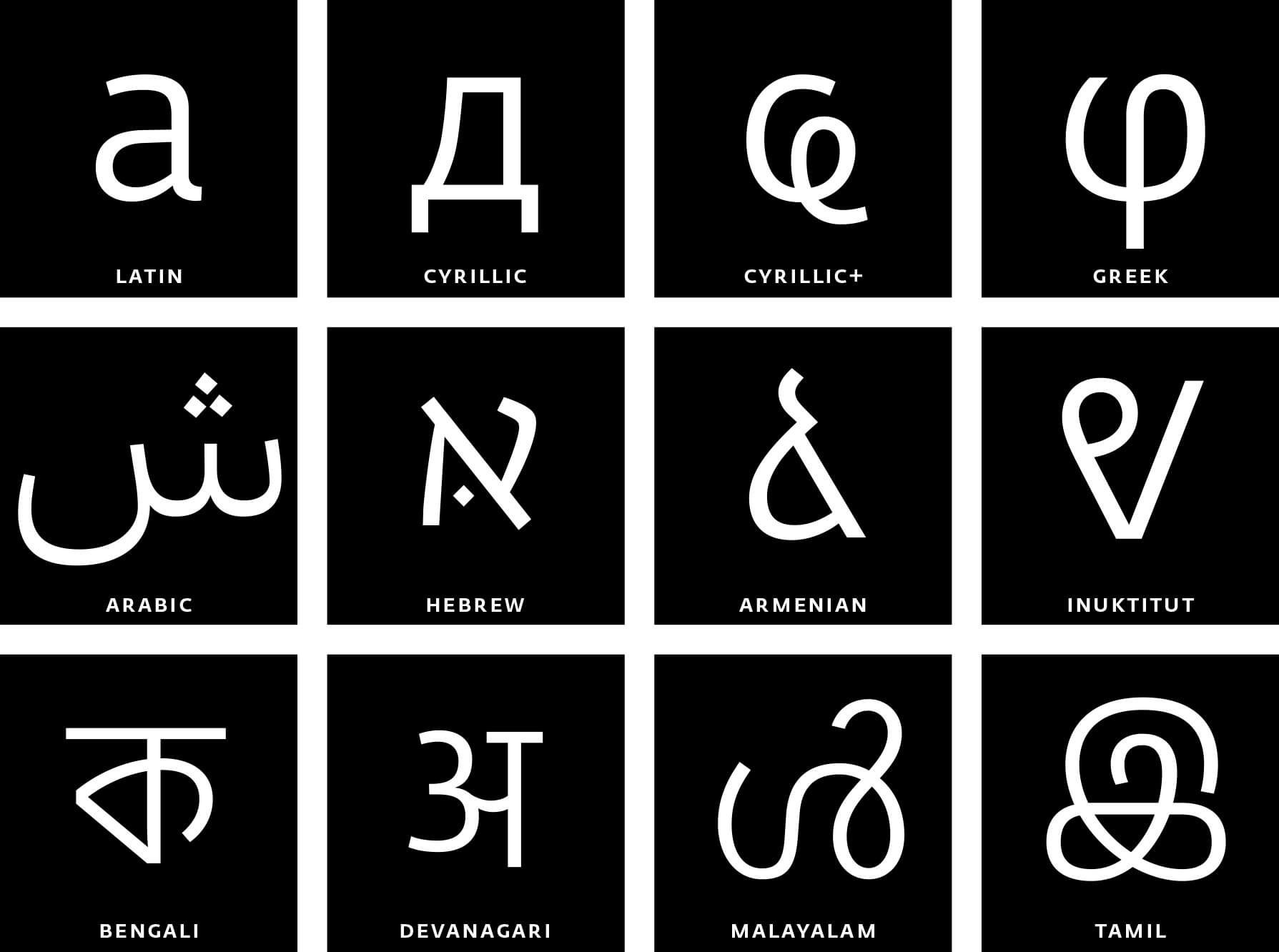
Another important super family is Greta, also in Serif and Sans and Mono available in multiple widths. Greta Sans comes in 80 styles (10 weights and 4 weights, with true italics.) It supports also Arabic, Hebrew, Cyrillic, Greek and Devanagari, each of those covered scripts is unprecedented, and currently largest typeface family available for these languages.
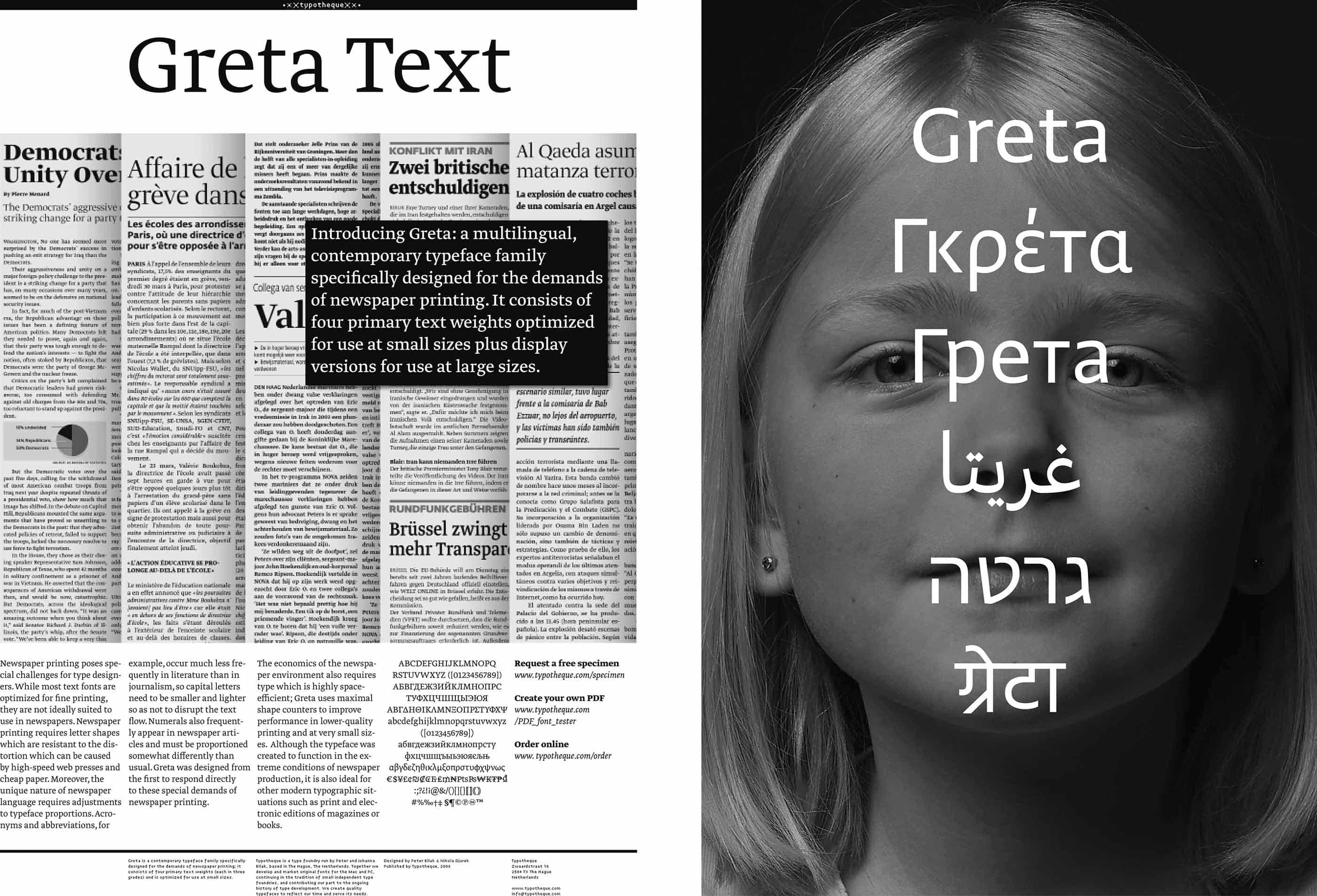
Typotheque retail library includes over 200 complex typeface families, consisting of over 2000 fonts.Typotheque retail library includes over 200 complex typeface families, consisting of over 2000 fonts.
3. Is there any newly released typeface from your company?
We publish new typefaces four times a year, so there are new designs regularly published. Recent ones are variable font explorations playing with optical illusions called Wind, or an unusual editorial typeface system called Brenner.
4. What is the ratio of your work for original design fonts and custom order fonts?
Typotheque has designed a number of corporate fonts, namely for the Paris Metro, Mozilla, World Press Photo, Vienna Airport, but still our retail type collection is the most important part of the work, taking 80% of our time.
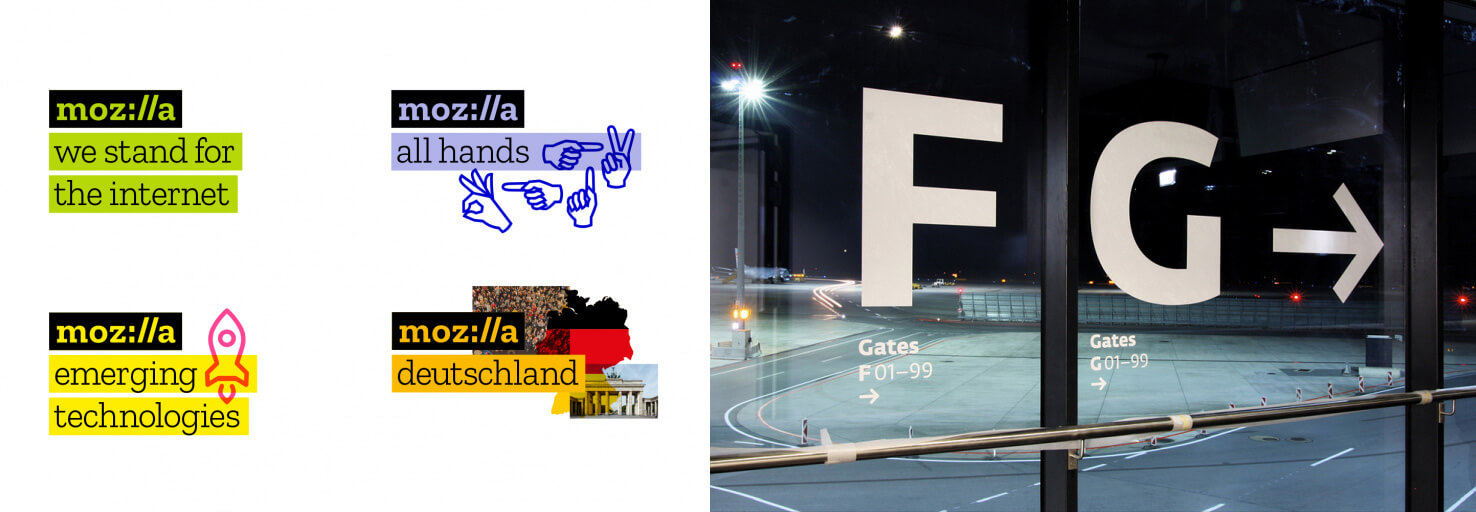
5. Can you tell us about your customer(s)? How do they use the font?
We work directly with our customers, advising them on how to get most out of our fonts. They are mainly design and branding agencies around the world. They used our fonts when they want to express specific voice, or define a brand.
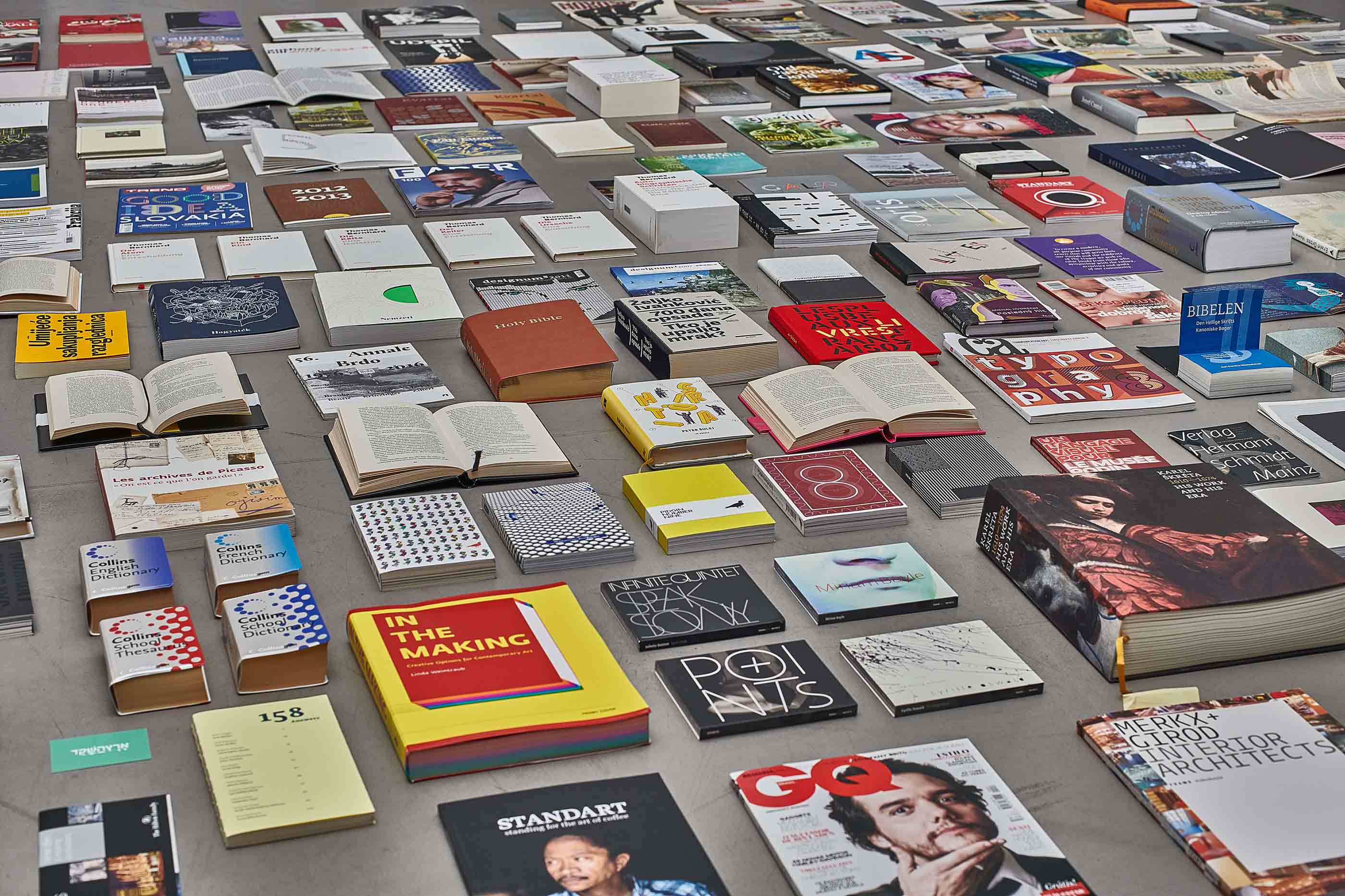
6. What kind of device(s) your customer has (have) embedded the font(s) with?
Our fonts have been used in variety of ways, built in in mobile applications, or electronic airport signage, used in software or hardware, but also in conventional print or websites. We are particularly proud that our fonts can be found on many websites, as we helped to defined the webfont standards, and we were the first foundry to introduce webfont licensing.
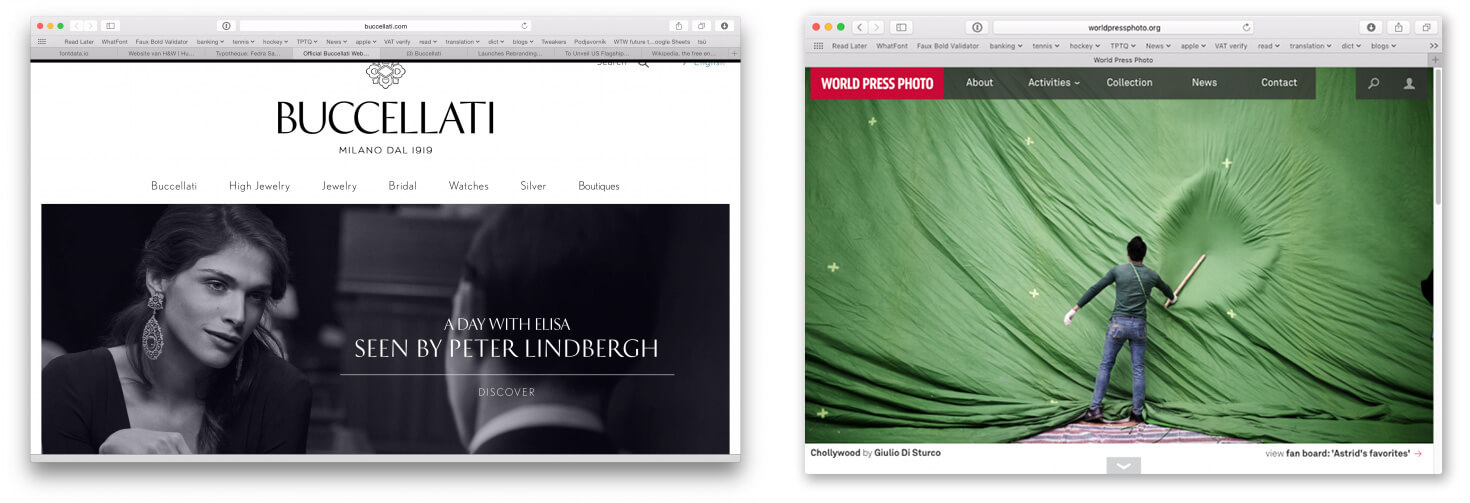
8. Can you tell us about what you are working on right now and what you will like to work on in the future?
We always work on a number of projects at the same time. At the moment, we work on a collection of Devanagari and Tamil fonts for our bestselling font collection. We also work on very playful display fonts for Latin, that will be published in 2019. Many of the projects that we work on will be published in 2-3 years, sometimes it takes even longer, to create the work that we are satisfied with, and that can bring value to our customers for many decades. For example, Fedra Sans was designed in 2001, but right now is our bestselling font, and we continue improving it and extending the language support. So when our client buy our fonts, they can expect to use them for a very long time.
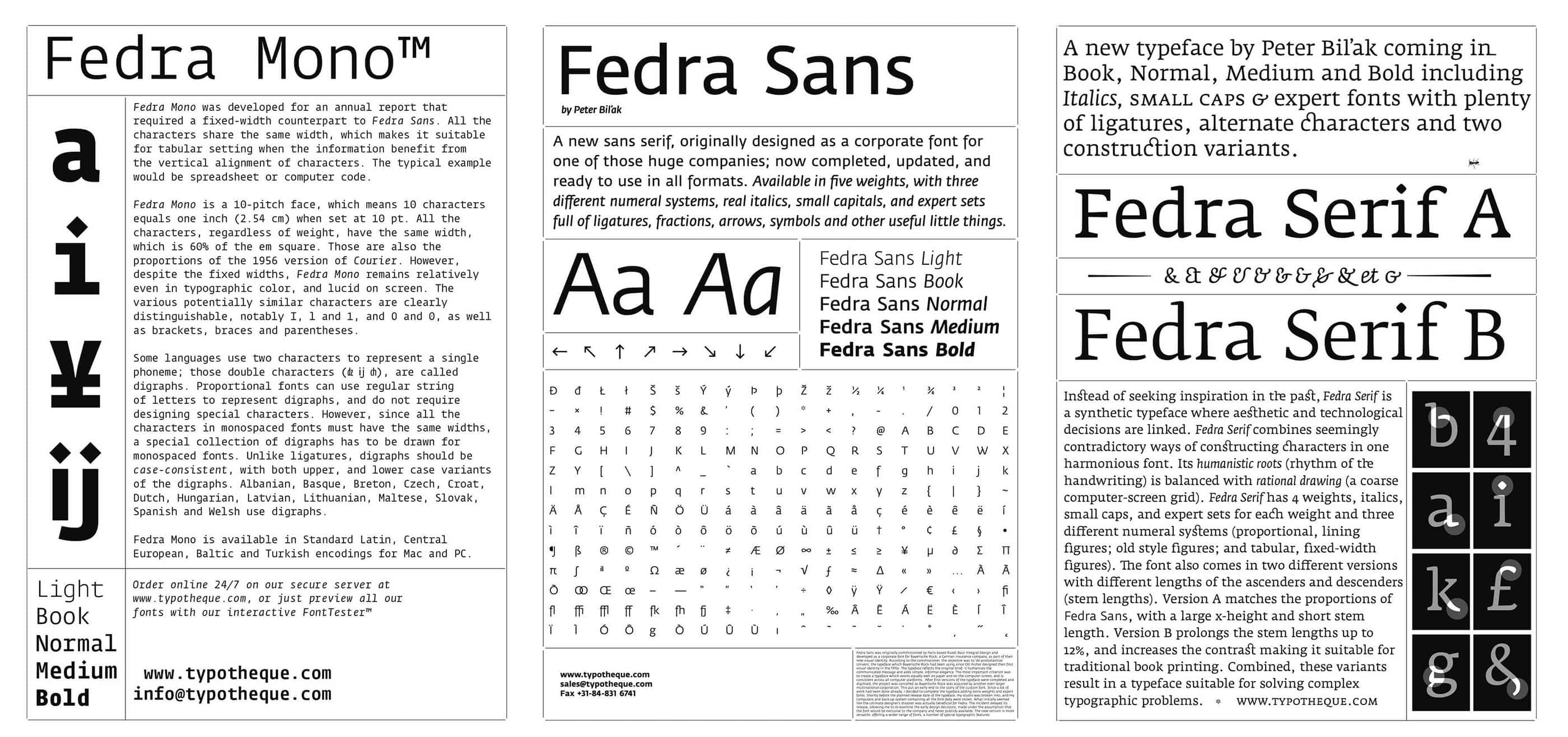
9. What is your opinion about open source font(s) and free font(s)?
Design and creativity doesn’t work great when they are too many people involved, so that’s why open source typefaces don’t bring creative value. Open Source methods is great for community collaboration, and is better suited for more technical work, which is not so much design driven.
There is no such thing as free fonts. It costs money and resources to make fonts, and someone has to invest both to make it happen. Usually it is big companies which pay for it, but that doesn’t make the fonts really free. One has to realise that big companies have their own intentions why they do it, and we have to decide if we want to be dependent on this work.
10. What do you think about Type Project and do you have any expectation for us?
We design fonts for many languages, but we also have limits, and are unable to make Japanese fonts. That’s why it is very valuable to work with local experts who can delivery high quality for other high quality typefaces. We hope that our fonts can become even more valuable, and usable by new communities which they can benefit from our work.
11. What do you think about FitFont service?
We find FitFont an important service that can extend the possibilities of other fonts and allow local audiences to use global fonts. We are very excited to work with FitFont.